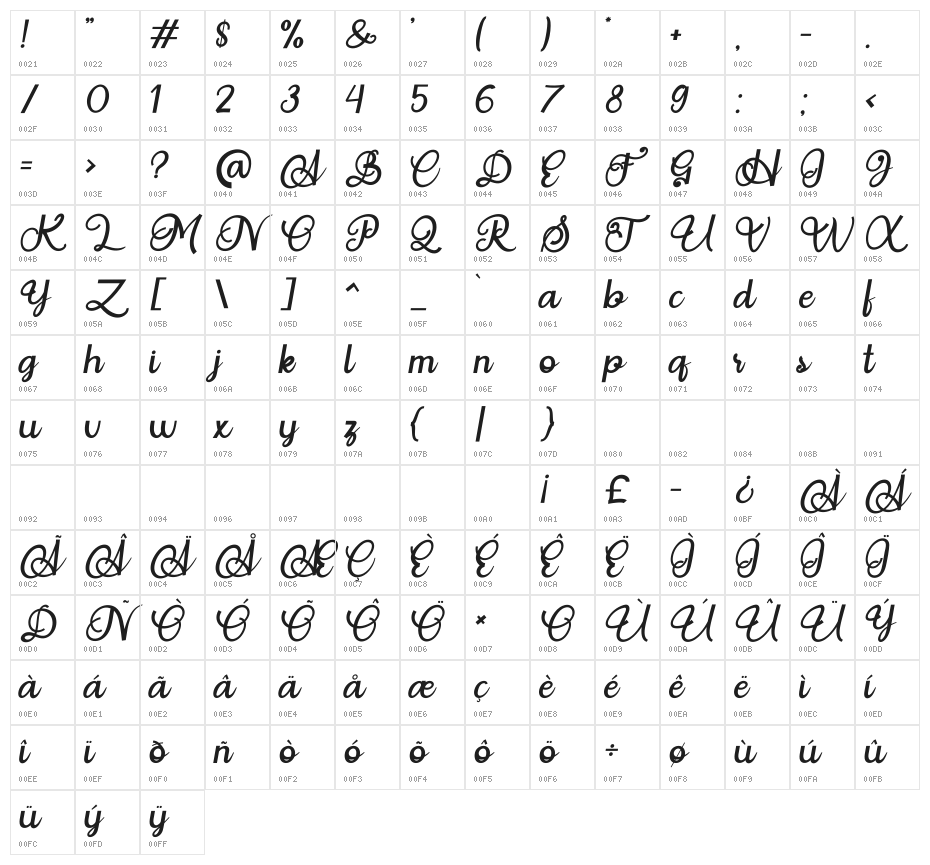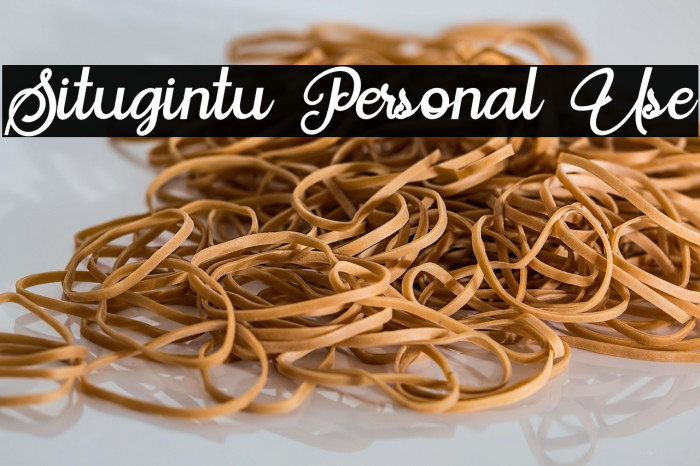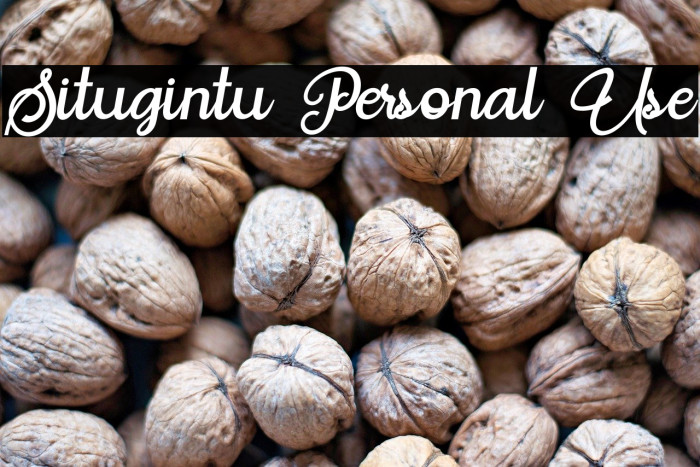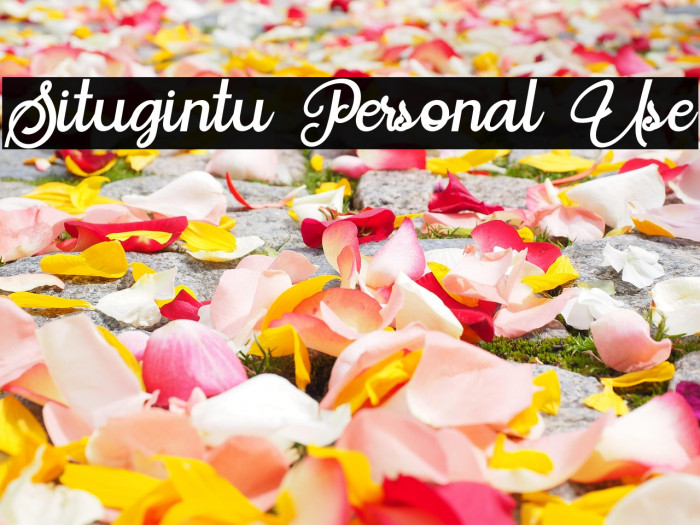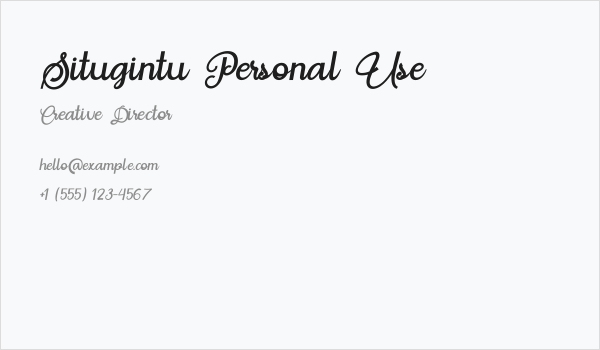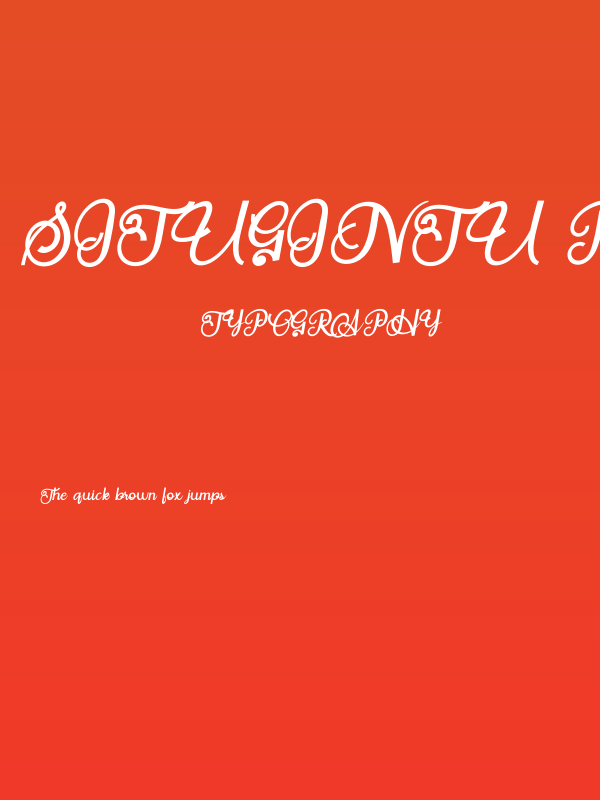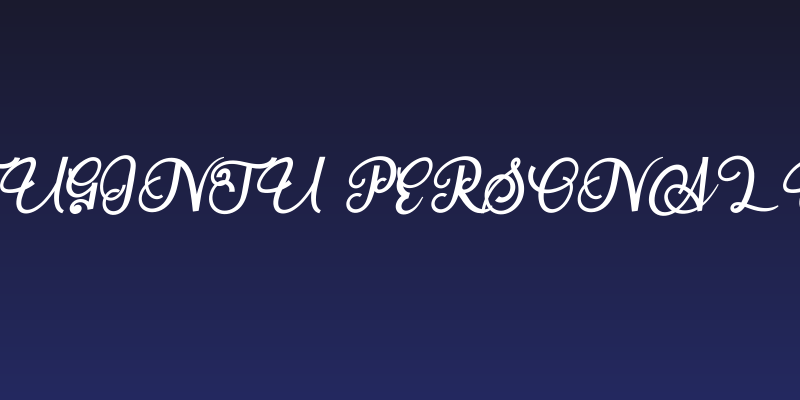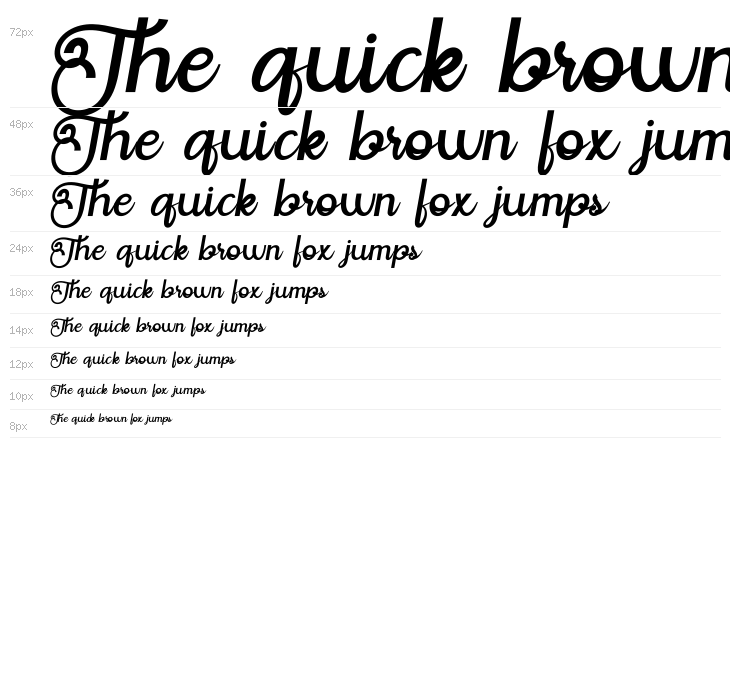
Situgintu Personal Use Font
Situgintu Personal Use Description
This font features a flowing, cursive style with elegant loops and swashes, giving it a sophisticated and artistic appearance. The uppercase letters are particularly ornate, with intricate curls and flourishes that add a touch of elegance. The lowercase letters maintain a smooth, connected script that enhances readability while retaining a stylish flair. Numbers and special characters are designed to match the overall aesthetic, with consistent stroke weight and decorative elements. This font is ideal for projects that require a personal, handwritten touch, such as invitations, greeting cards, and branding materials.
| Proposed Projects | Ideal for invitations, greeting cards, branding, and any project needing a personal touch. |